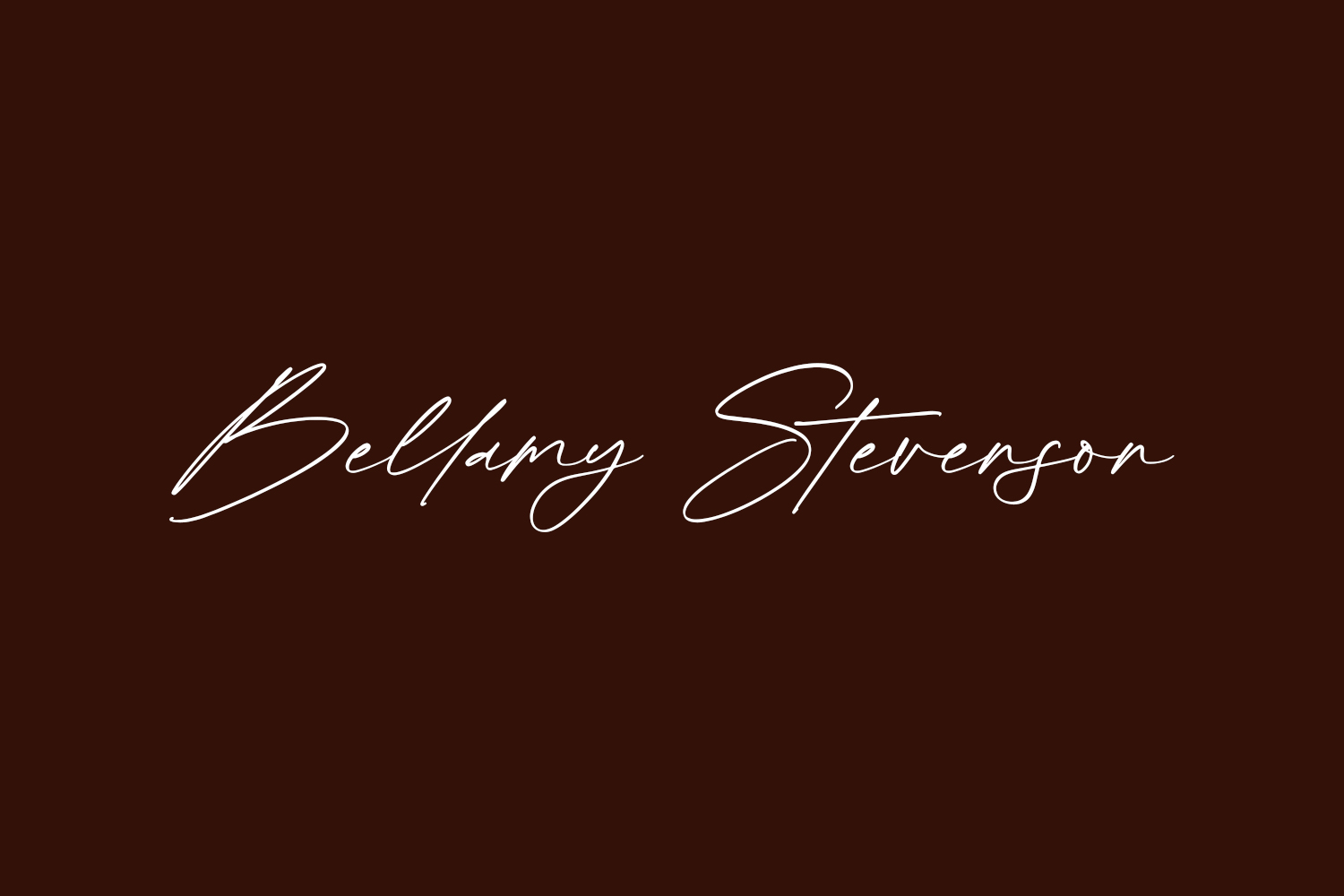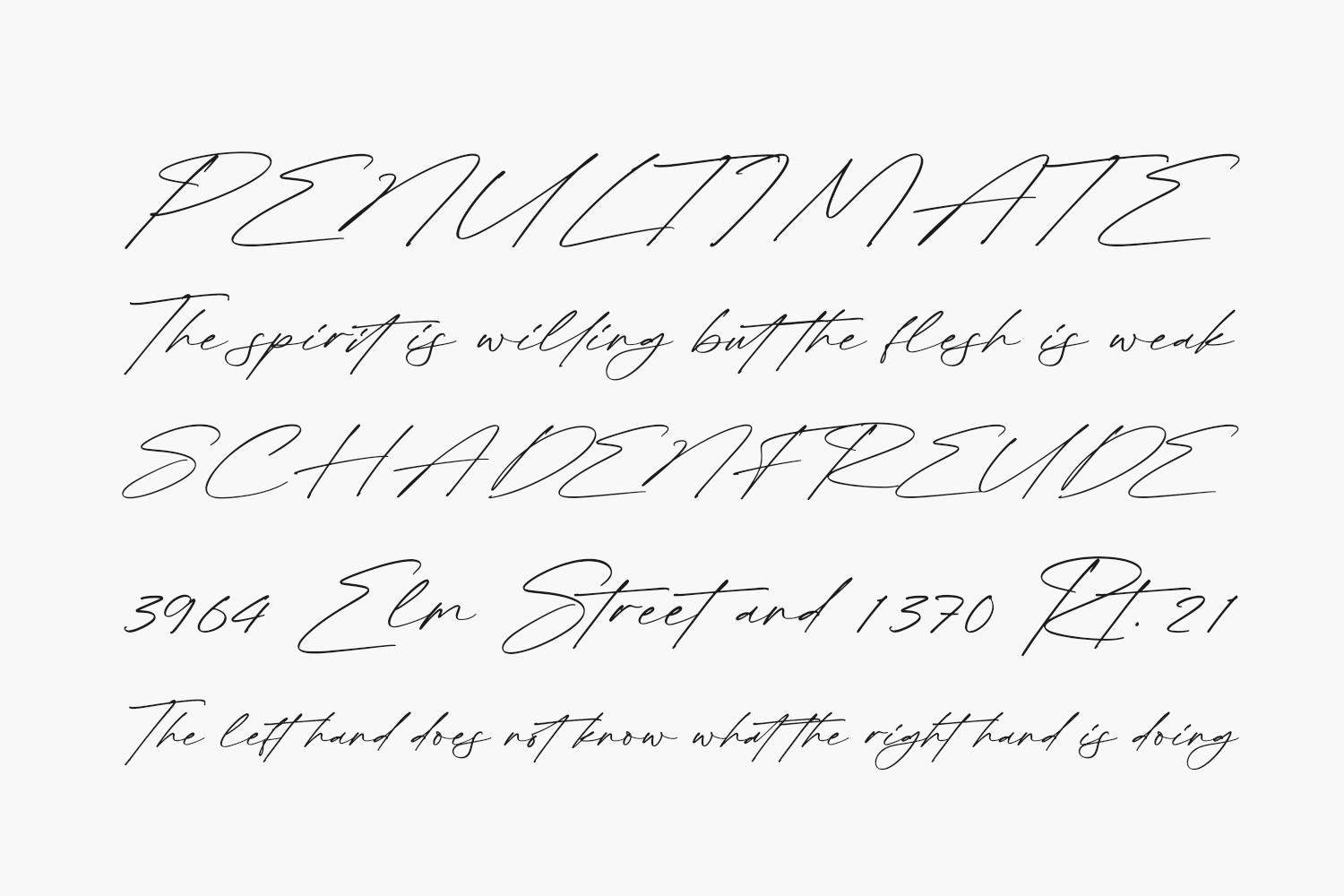
Bellamy Stevenson Free Font offers a laid-back yet luxurious script font, perfect for a range of projects including logos, branding, labels, photography, watermarks, special events, and any other delightful projects that demand a touch of exquisite script elegance. Bellamy Stevenson Free Font is free for personal use only. Please purchase the full version for commercial use.
Designed by Letterena Studios